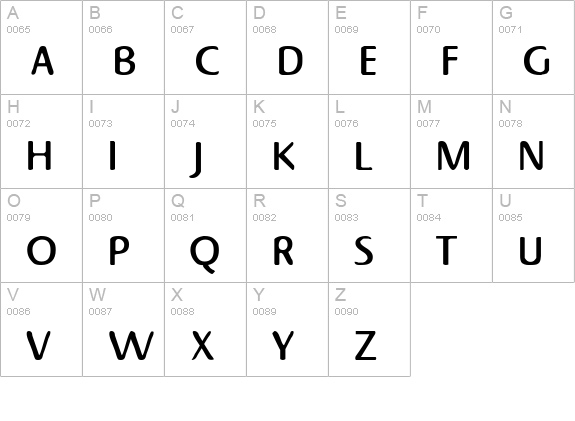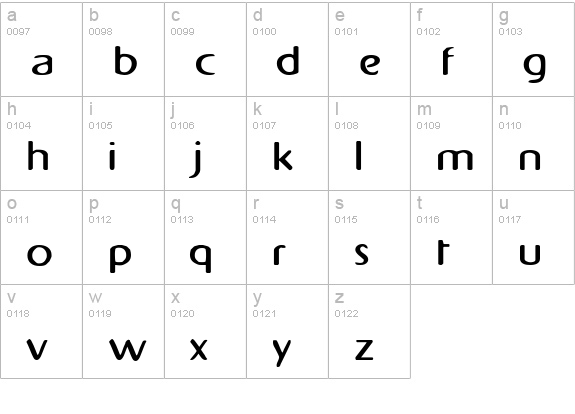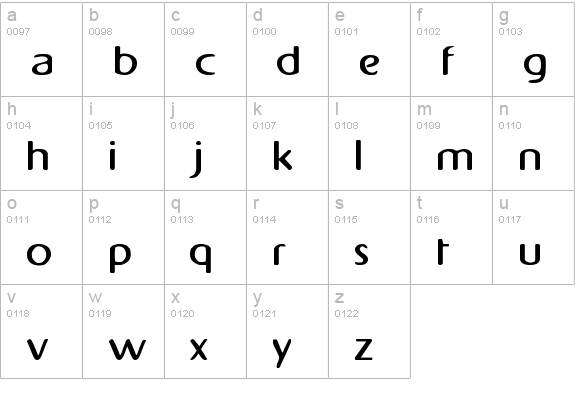
Napapiiri font is a stunning display typeface that effortlessly captures the essence of modern elegance. With its unique and intricately designed letterforms, this font is sure to make a lasting impression on any design project. What makes Napapiiri font even more appealing is that it is completely free. Yes, you read that right! This exquisite font is freely available to download at FontsMarket.com. Now you can add a touch of sophistication to your designs without breaking the bank. Napapiiri font is perfect for various design purposes, including branding, logos, headers, posters, and so much more. Its clean lines and stylish curves create a harmonious balance that is both pleasing to the eye and captivating to the reader. The versatility of Napapiiri font is another reason why it stands out from the crowd. Whether you want to create a modern and sleek design or a more playful and whimsical one, this font has got you covered. Its wide range of letterforms and alternate characters allow you to experiment and find the perfect fit for your creative vision. So why wait? Elevate your designs with the beauty and elegance of Napapiiri font. Simply head over to FontsMarket.com and download this exceptional font for free. It's time to make a statement with your design projects, and Napapiiri font is here to help you do just that.